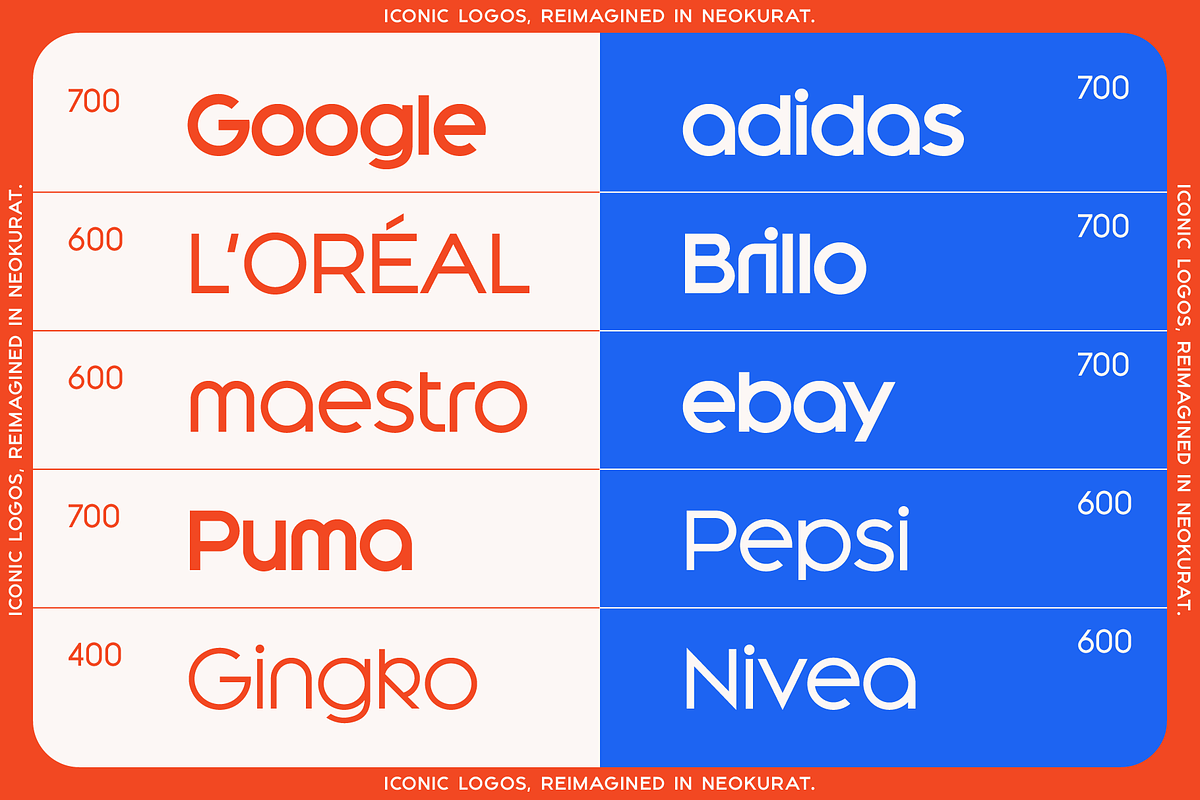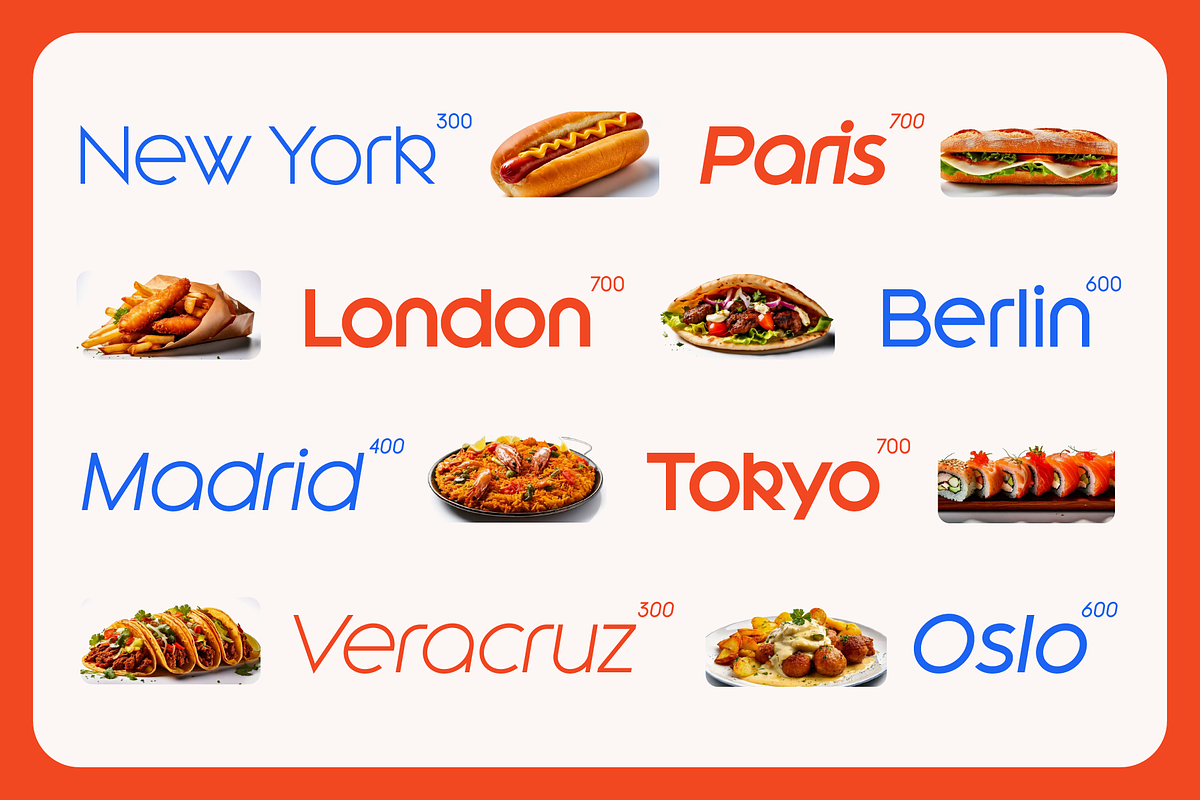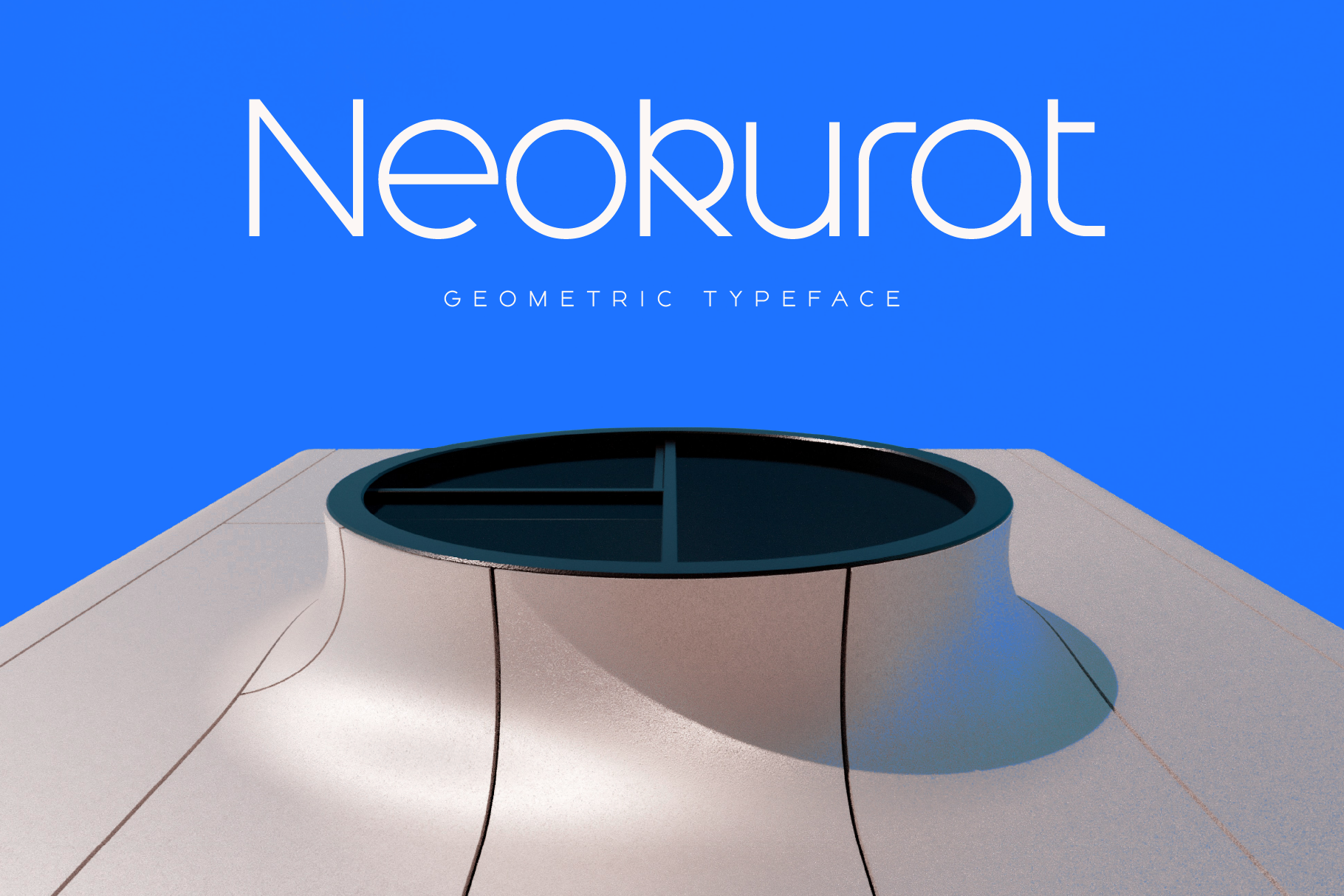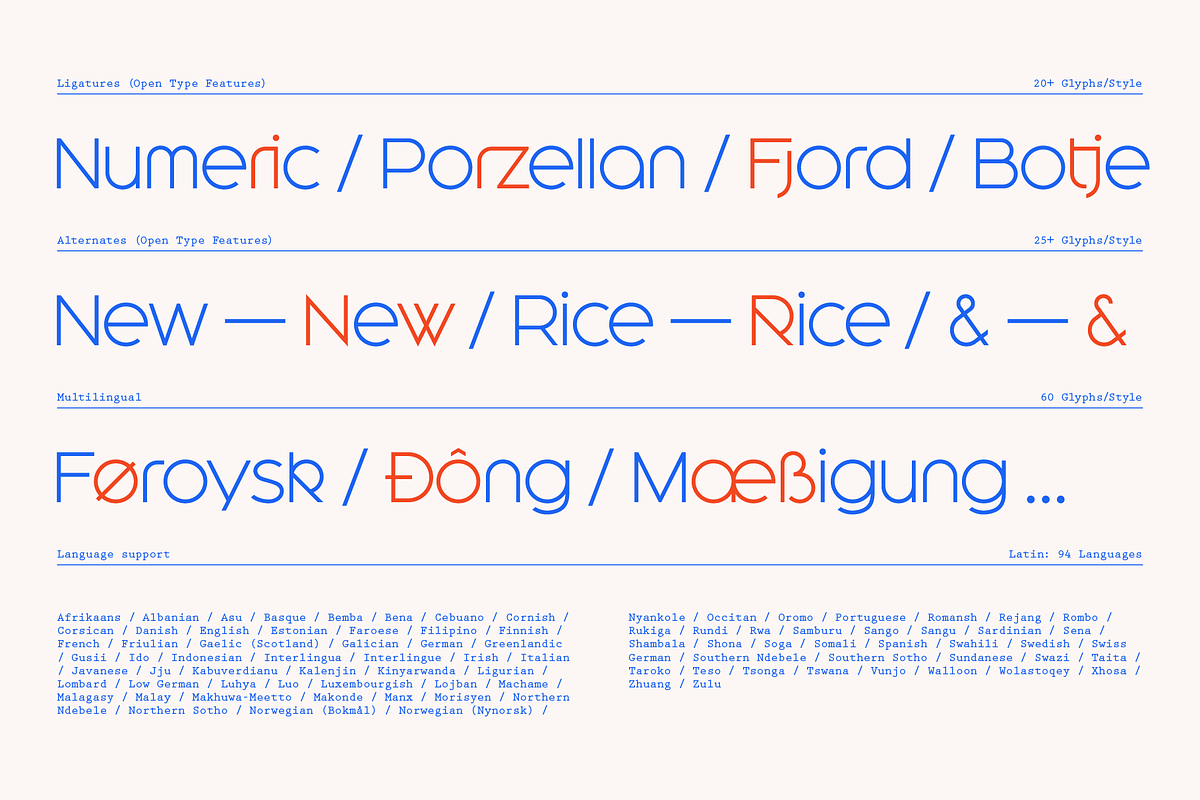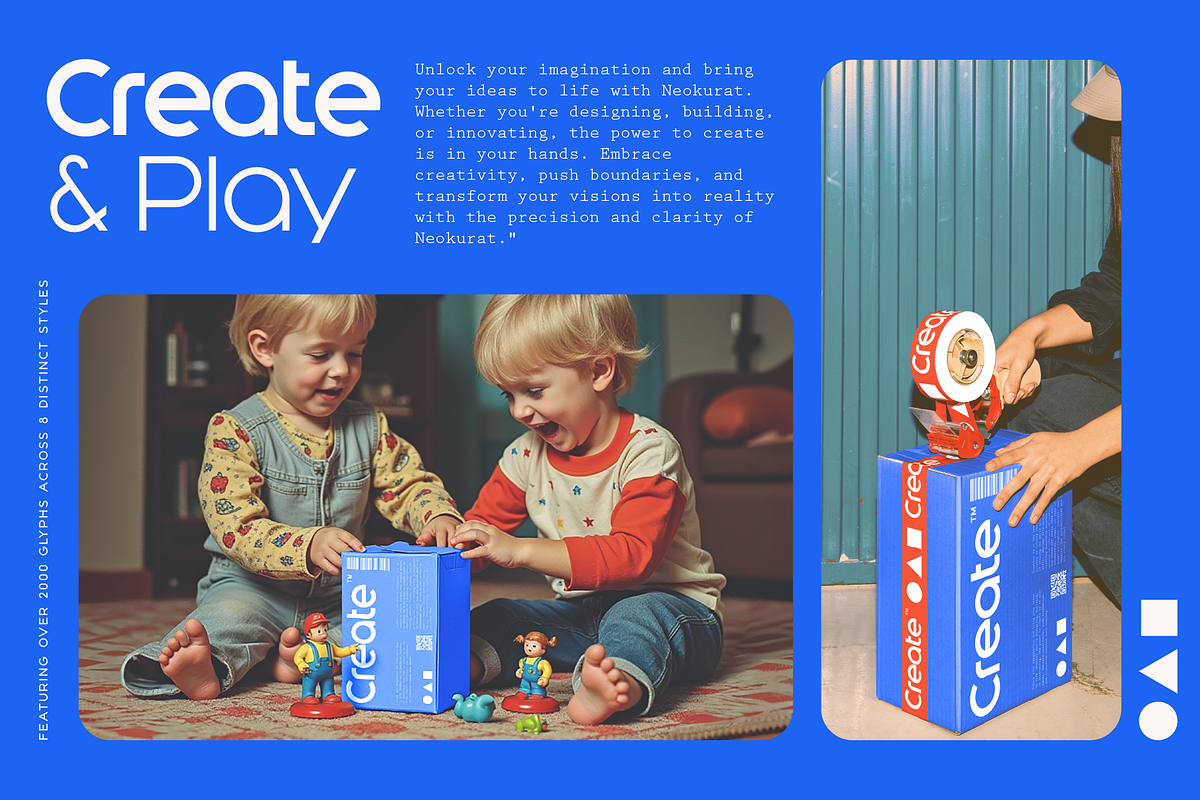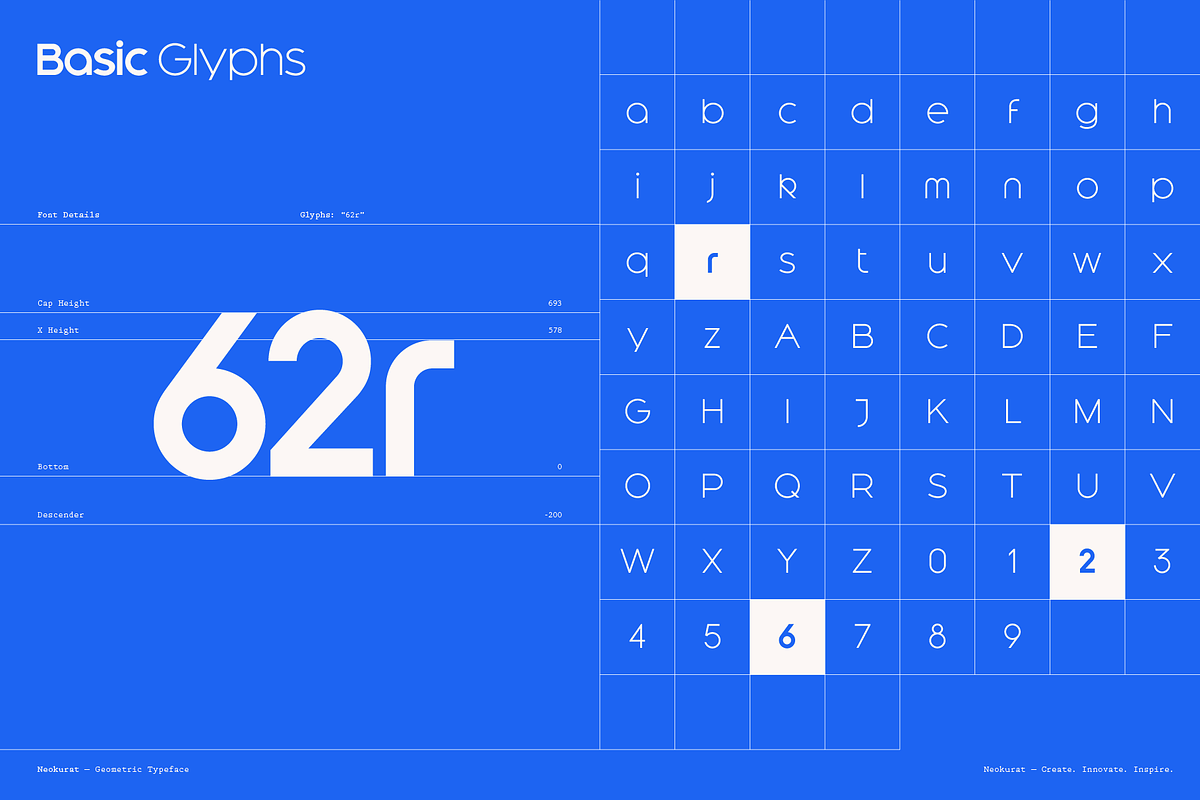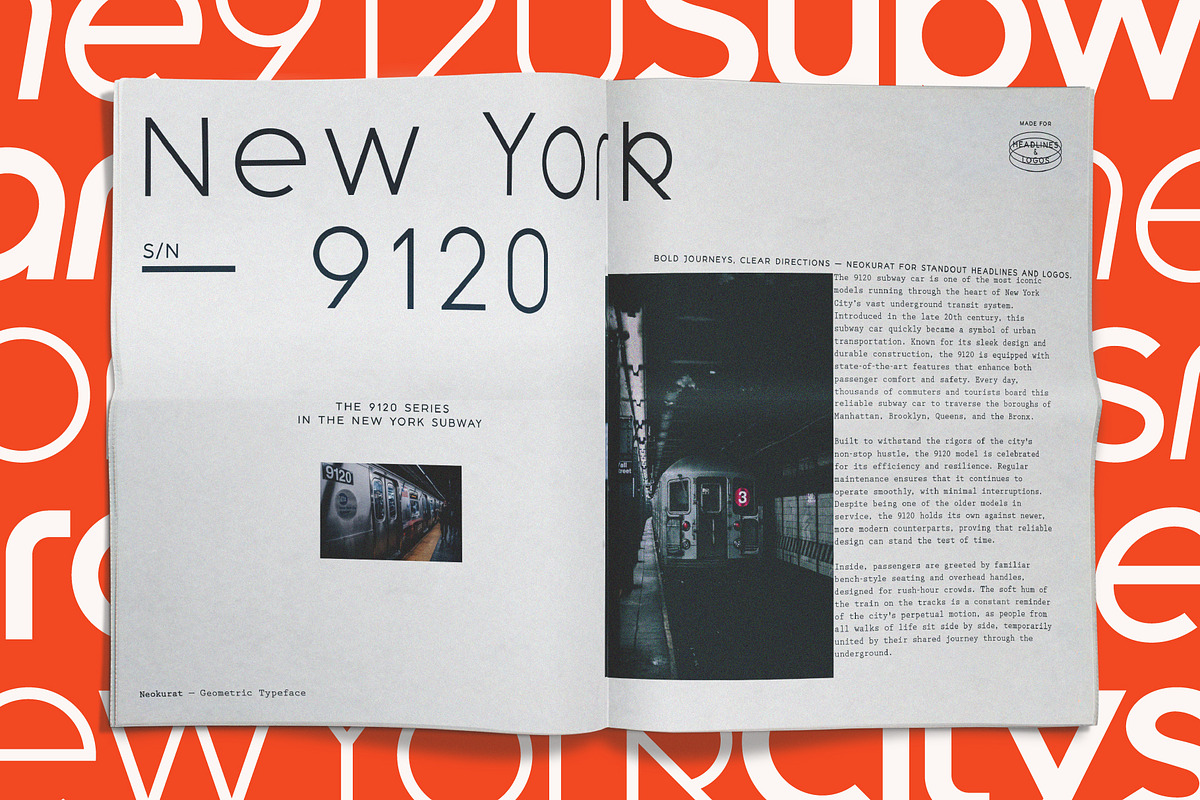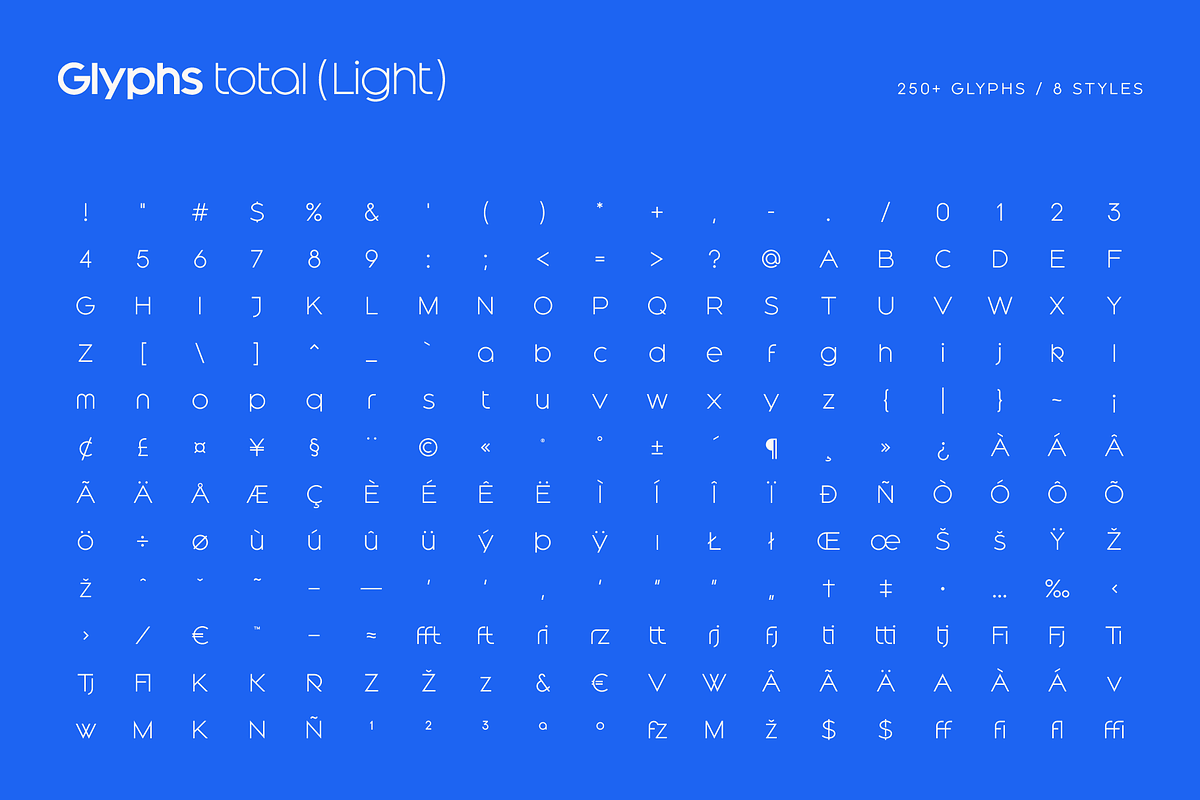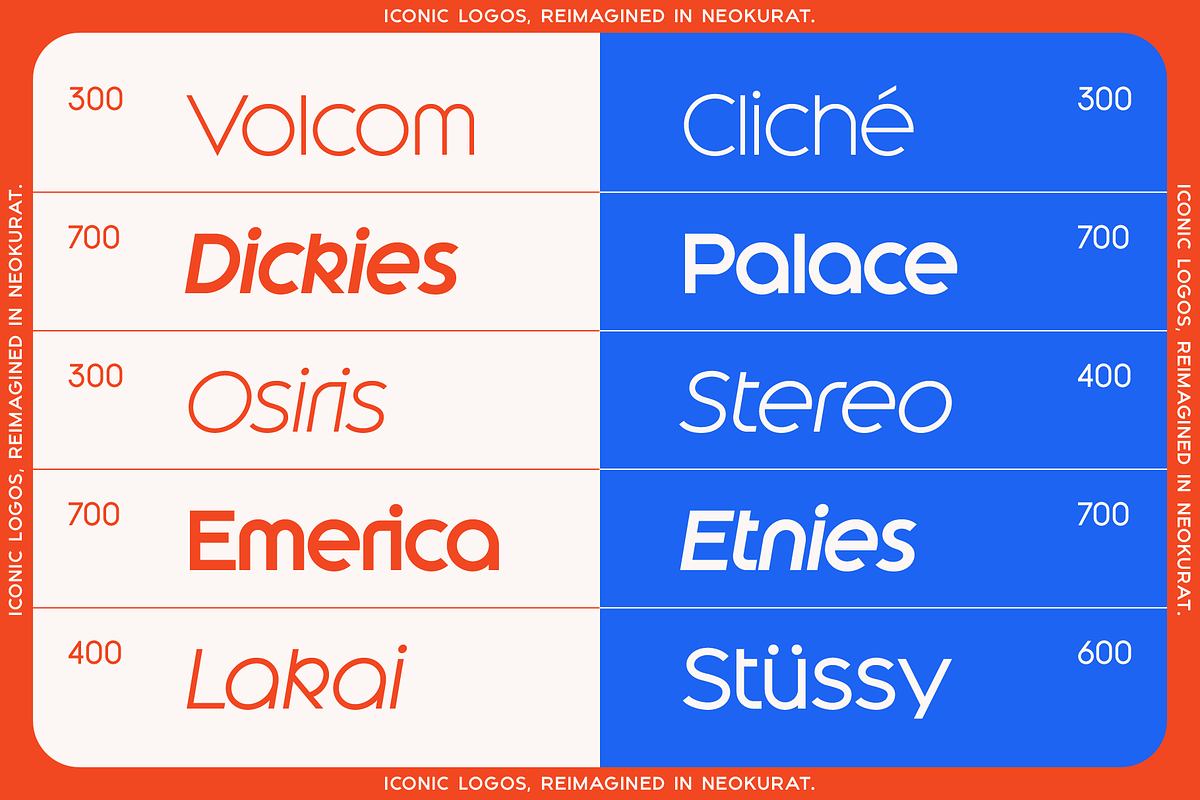
Neokurat — A Geometric Typeface
Neokurat – A Geometric Display Font with Distinct Character
Neokurat is a modern, geometric sans-serif display font inspired by the Bauhaus movement and built on the foundation of pure, simple shapes. With its low cap height and compact design, it creates a striking and cohesive visual presence – perfect for logos, headlines, and brand identities with strong personality.
While Neokurat is undeniably a typeface, its design pushes the boundaries between typography and iconic branding. Its consistent, minimal construction gives it the bold clarity of a symbol or logomark – yet with the versatility of a font.
Geometrically constructed sans-serif
Inspired by the Bauhaus principle of “form follows function”
Low cap height for a compact, unified look
Perfect for logo design, branding, headlines & editorial use
Multiple weights and styles for flexible use
Whether you're designing minimalist logos or bold typographic statements, Neokurat delivers the perfect balance between functional clarity and visual impact.